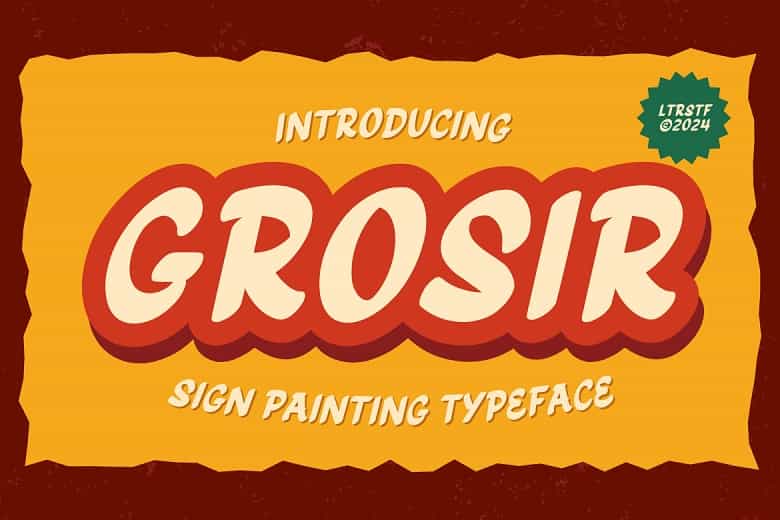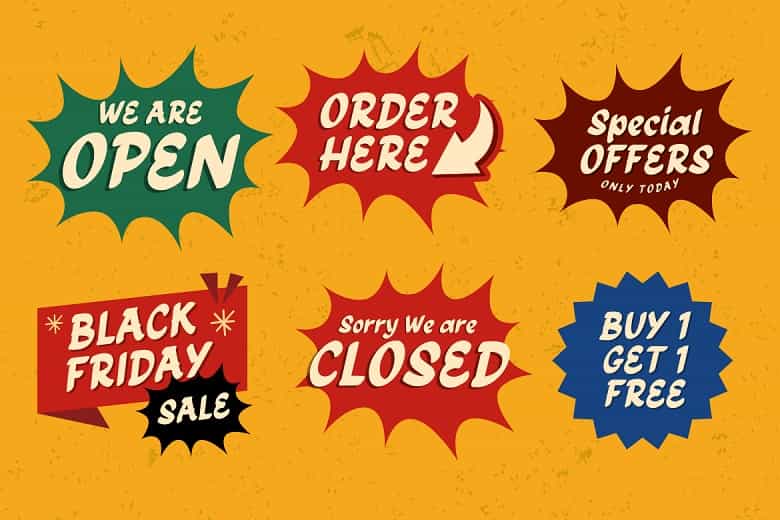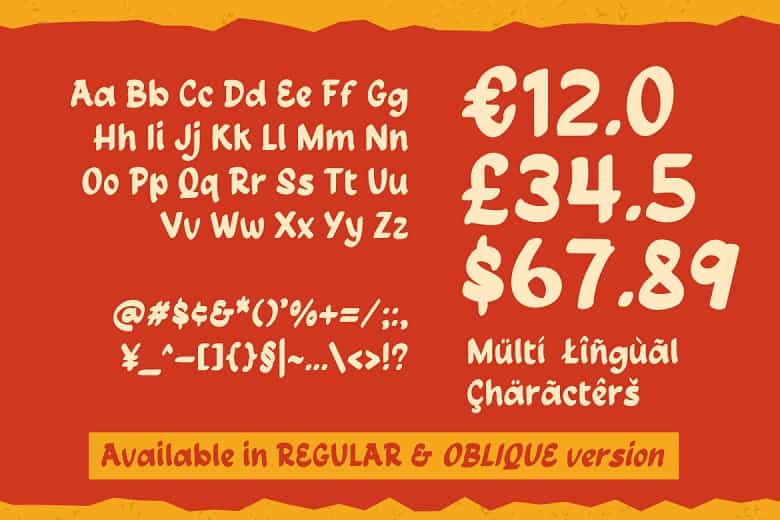
Do you want to meet our new font collection? Welcome to “Grosir Font”. Created with the design of vintage manually crafted sign paint used in the grocery store in mind. Convenient for any kind of creation, be it a social media promo, every project becomes simpler and more enjoyable.